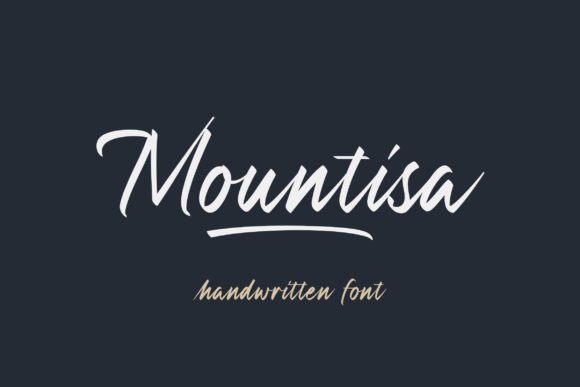
Step into the world of Mountisa, a breathtaking handwritten font that captures the essence of dynamic energy and artistic flair. Crafted with meticulous attention to detail, Mountisa's strokes dance across your designs like a symphony of elegance. Immerse yourself in its carefully constructed characters, each carrying a unique personality that shines through in every letterform.
With Mountisa, your designs transcend the ordinary, transforming into captivating masterpieces that command attention. Its inherent versatility makes it the perfect companion for an array of creative endeavors, from the intimate charm of personal stationery to the bold impact of product packaging. Whether you're a seasoned designer or just starting your creative journey, Mountisa empowers you to express your individuality with a font that truly resonates.
Experience the joy of effortless creativity as you witness Mountisa seamlessly elevate your designs, bringing your vision to life. Dive into a world of endless possibilities, where imagination knows no bounds and every project becomes a testament to your artistic genius. Let Mountisa be your muse, guiding you towards designs that captivate, inspire, and leave a lasting impression.
Unlock the full potential of Mountisa's PUA encoding, a gateway to a world of glyphs and swashes that unleash your creativity. Unleash a symphony of intricate details, adding depth and dimension to your designs with effortless ease. Personalize your projects like never before, crafting unique and enchanting creations that reflect your unique style.